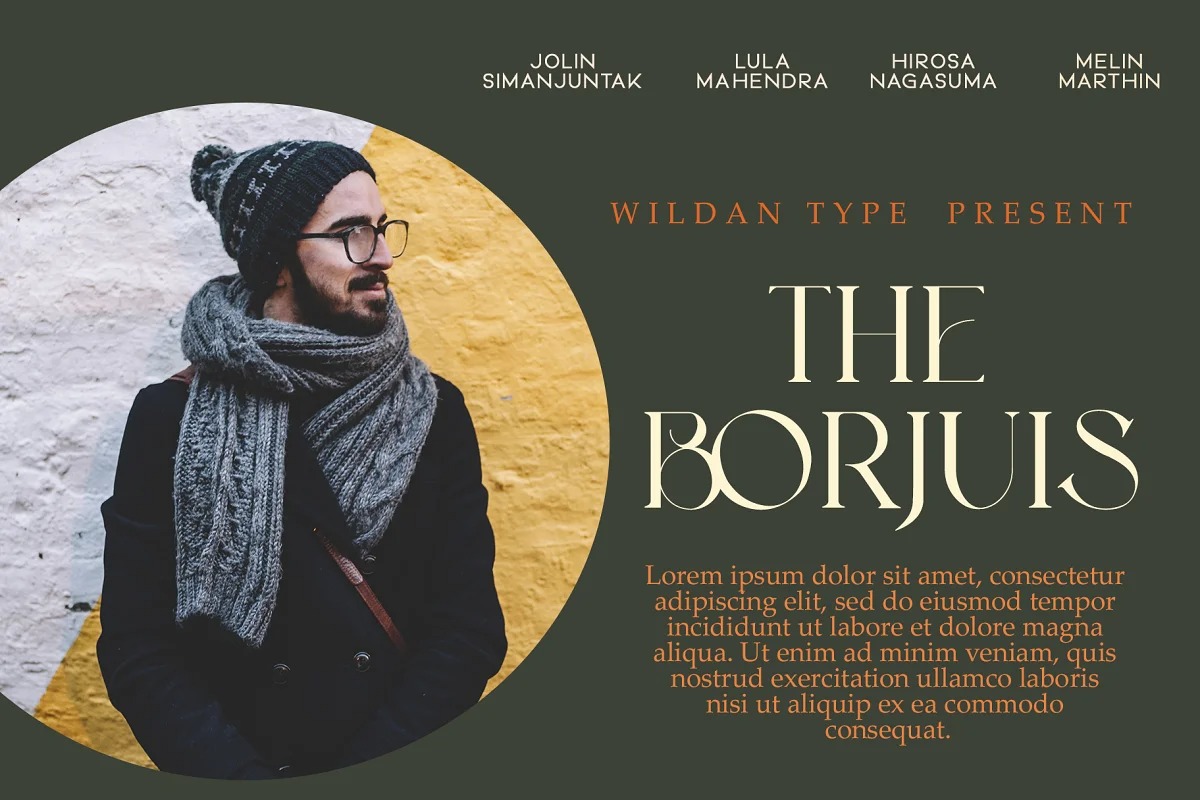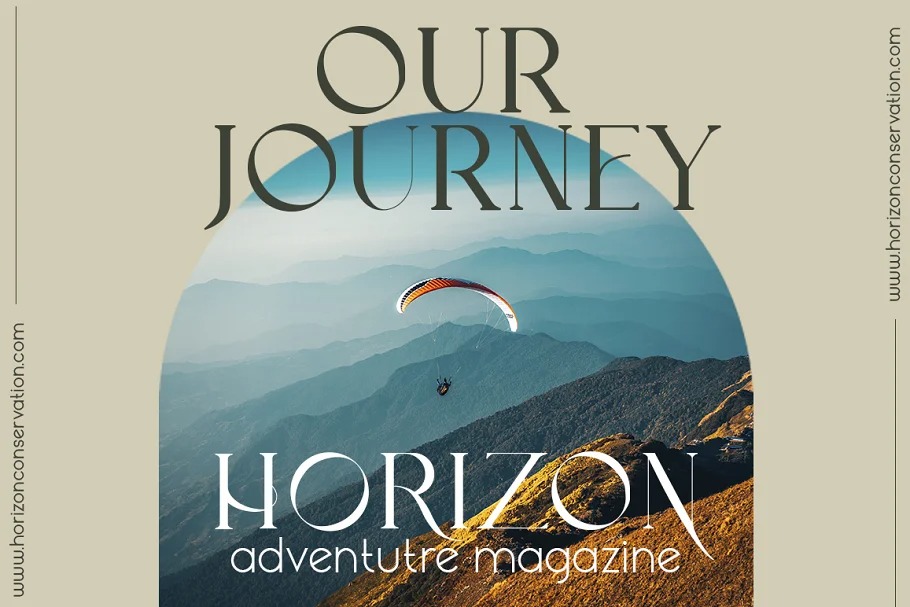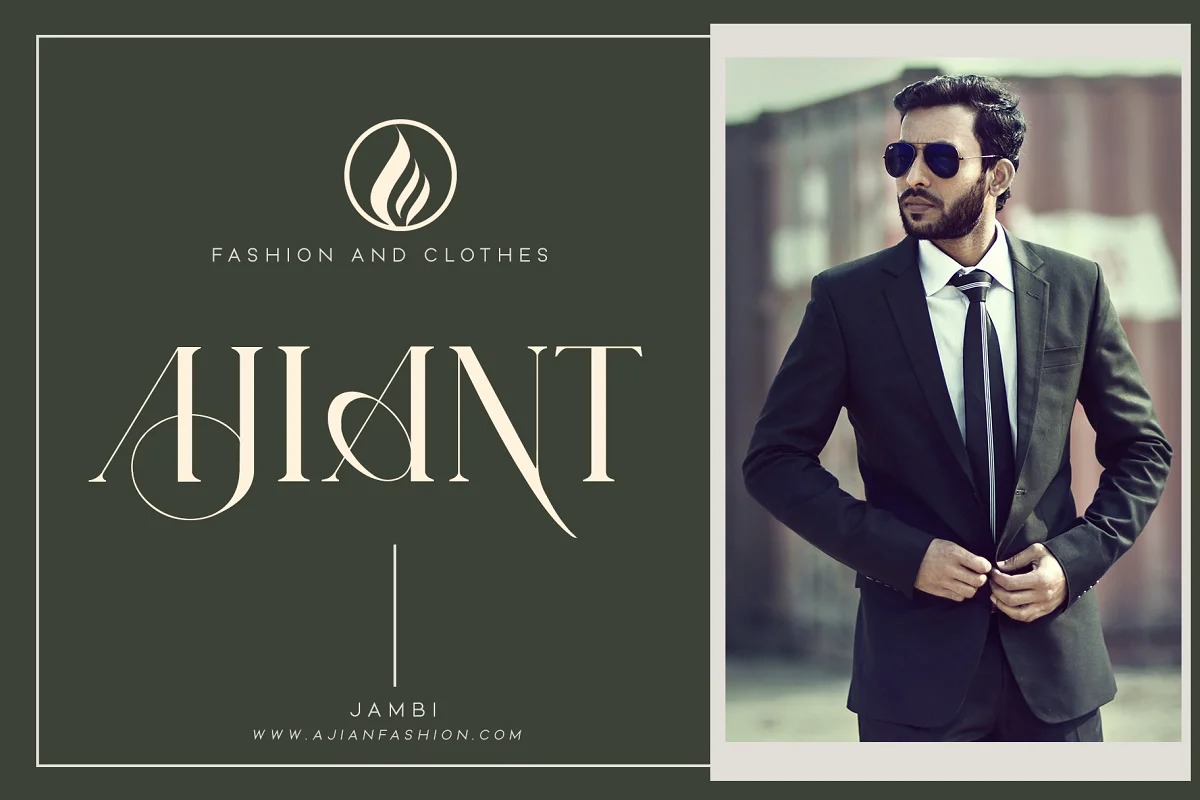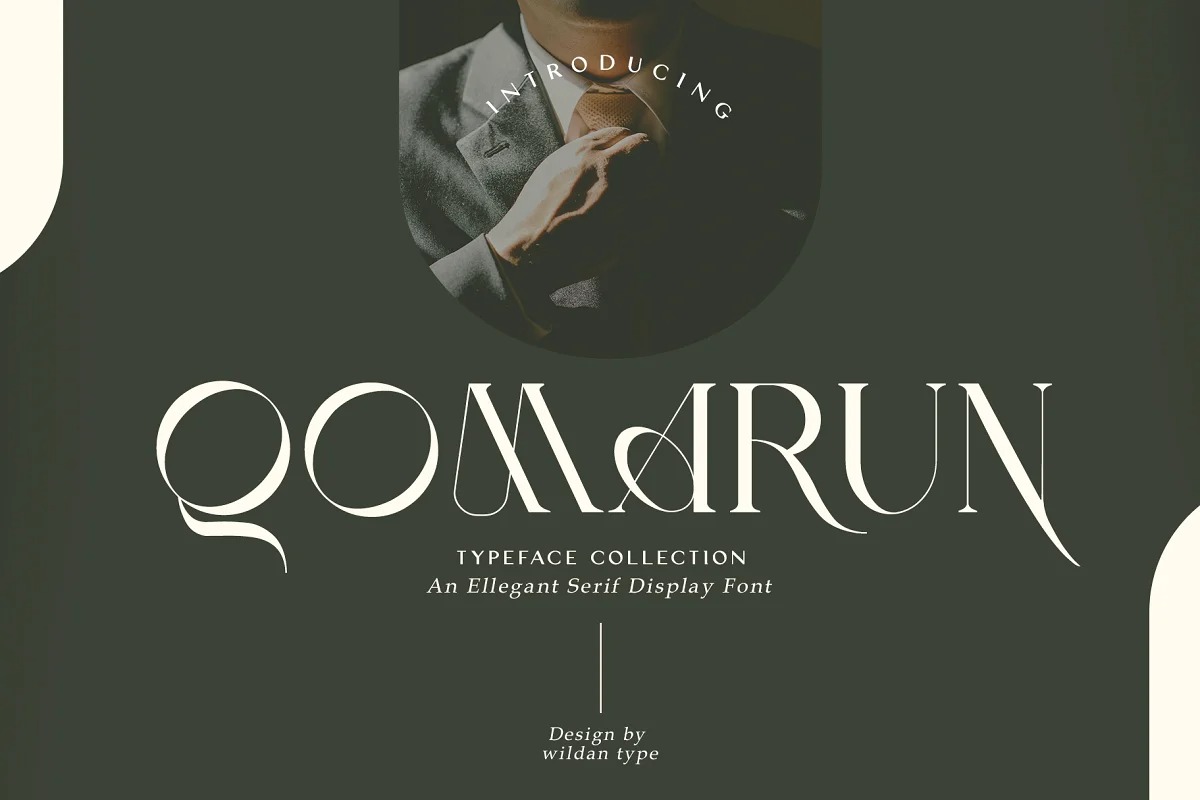
Qomarun Serif Font
This font is display serif that works beautifully for branding projects and quotes. It has unic construction for future style. Qomarun perfectly used for product presentation, elegant logo design, packaging or invitation cards or heading text. Qomarun with symbol and multilingual support.